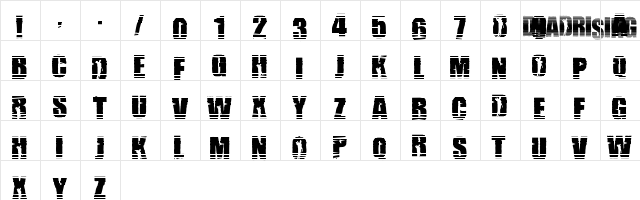
Uprising Regular Font Preview
Uprising Regular
Uprising Regular Font Details
Design Context for Uprising Typeface
Uprising is a composed and adaptable typeface that performs quietly and consistently across a wide range of design contexts.